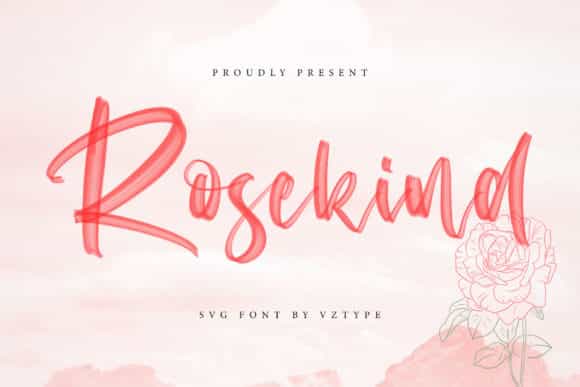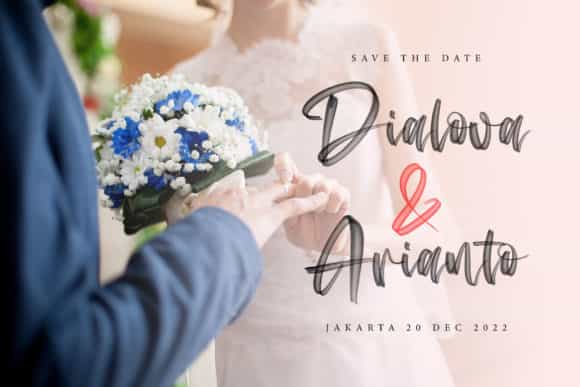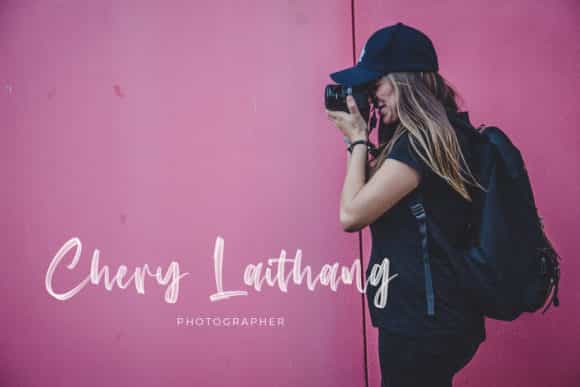
Rosekind an artistic brush script font packed with bonus features, including an extensive selection of alternates, swashes and ligatures designed to help you quickly create distinctive typographic designs. Rosekind is developed and shared through VZ Type.